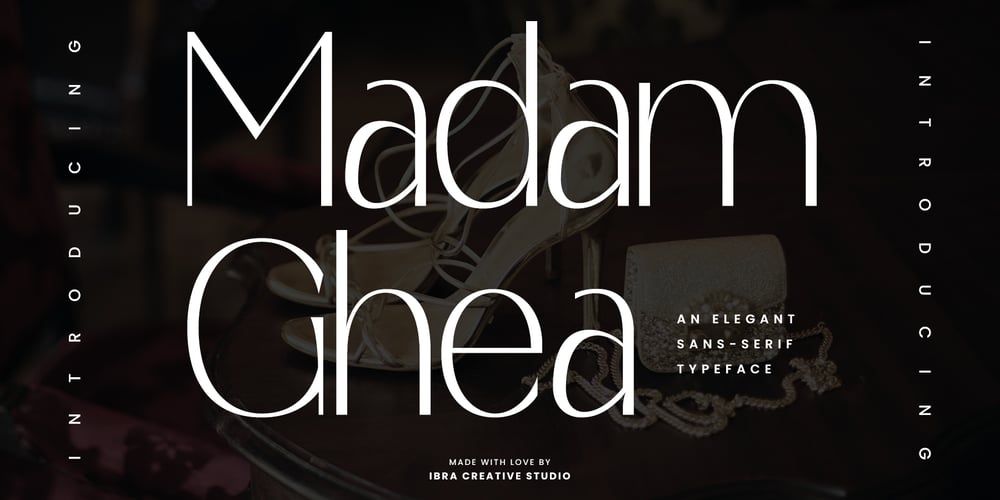
Madam Ghea Font Family was designed by Roisatul Azizah and published by IbraCreative. Madam Ghea contains 1 styles and family package options. Madam Ghea – An Elegant Sans-Serif TypefaceMadam Ghea, an elegant sans-serif typeface, epitomizes sophistication and modern refinement with its clean lines and tasteful simplicity. Each letter in Madam Ghea is meticulously crafted, presenting a harmonious balance between minimalism and timeless elegance. The graceful curves and well-balanced proportions contribute to a sense of effortless chic, making it a versatile choice for a wide range of design applications. Whether gracing the pages of editorial layouts, enhancing branding materials, or conveying a sense of refined simplicity in digital platforms, Madam Ghea stands as a testament to the power of understated elegance in the world of sans-serif typography. This typeface, with its classic charm and contemporary flair, effortlessly elevates any design it graces, embodying the essence of timeless style.Madam Ghea is perfect for branding projects, logo, wedding designs, social media posts, advertisements, product packaging, product designs, label, photography, watermark, invitation, stationery, game, fashion and any projects.Fonts include multilingual support for; Afrikaans, Albanian, Czech, Danish, Dutch, English, Estonian, Finnish, French, German, Hungarian, Italian, Latvian, Lithuanian, Norwegian, Polish, Portuguese, Slovak, Slovenian, Spanish, Swedish.